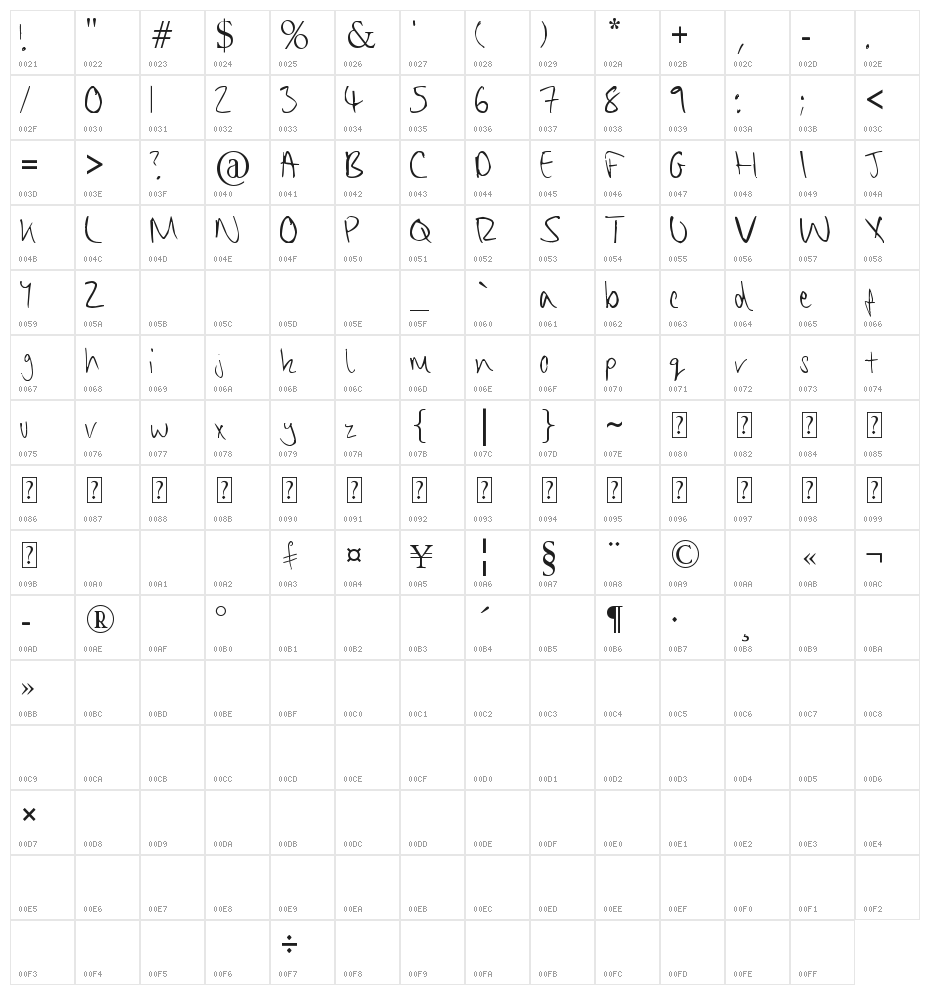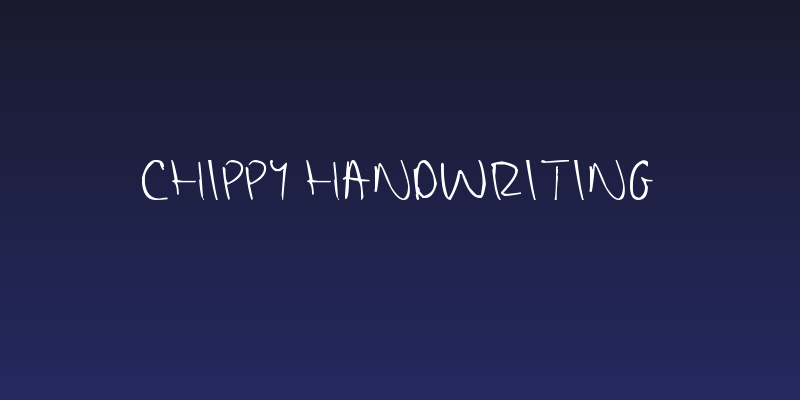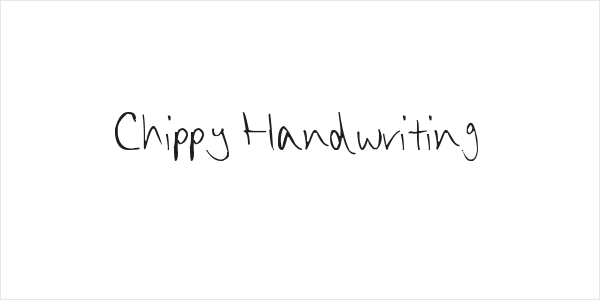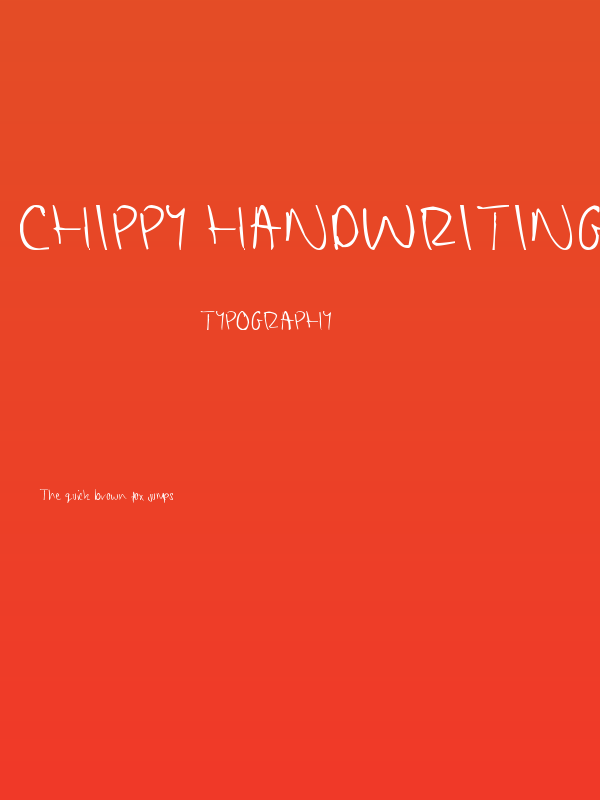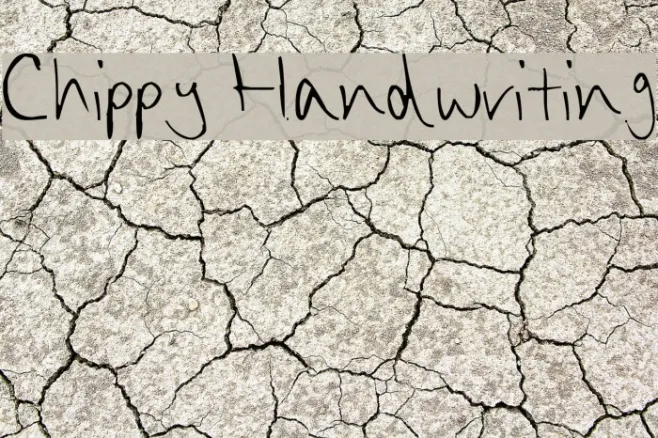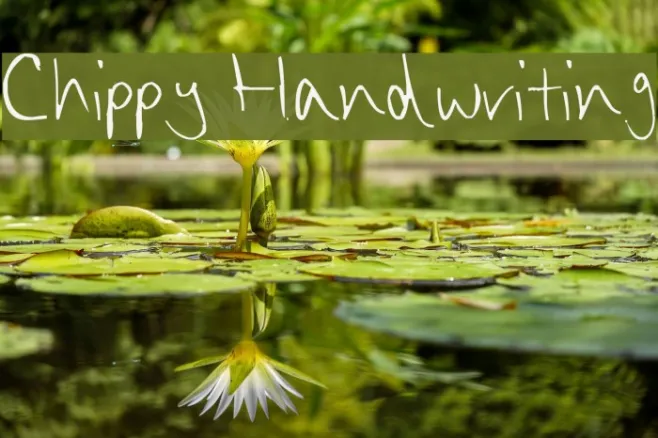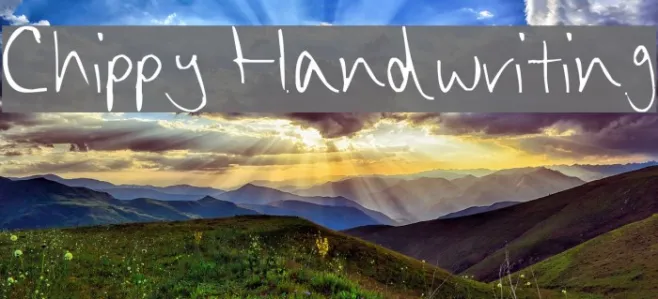
Chippy Handwriting Font
Chippy Handwriting Description
This font exudes a playful and casual vibe, reminiscent of authentic handwriting. The letters are unevenly sized and spaced, adding to its informal charm. The strokes are varied, with some letters featuring thicker lines while others are more delicate, creating a dynamic visual rhythm. The characters are slightly slanted, enhancing the handwritten feel. This font is versatile, suitable for projects that require a personal touch, such as greeting cards, invitations, or informal branding. The inclusion of numbers and special characters ensures its utility across various applications.
| Use Case | Logos, Headlines, Informal text |
| Proposed Projects | Ideal for greeting cards, invitations, informal branding, and personal projects. |